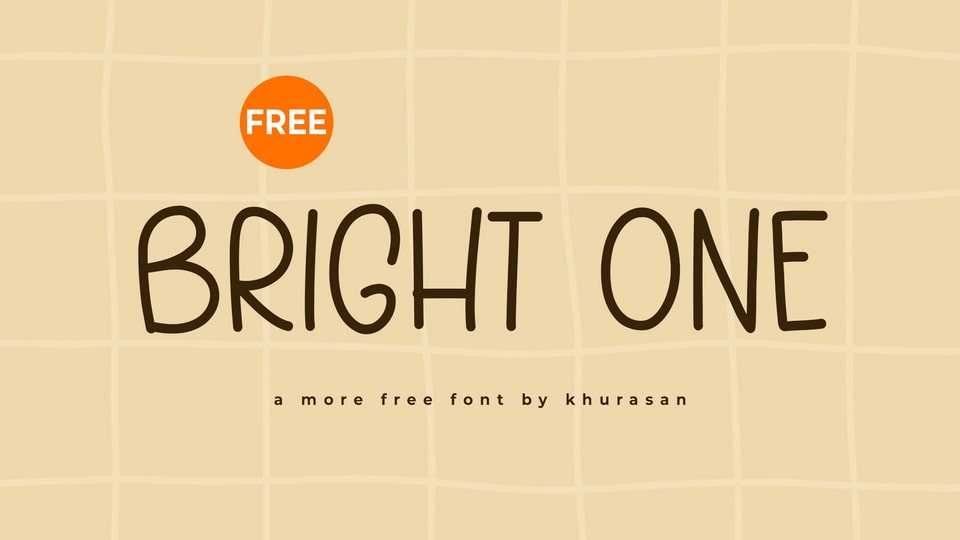
Download Bright One font, a cheerful and casual hand-drawn font that radiates friendliness and positivity. With its tall, rounded letterforms and slightly imperfect strokes, it adds a playful charm to any design.